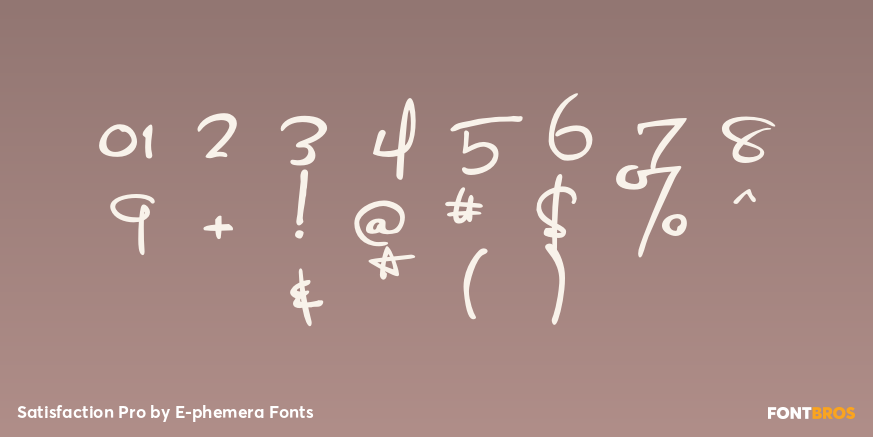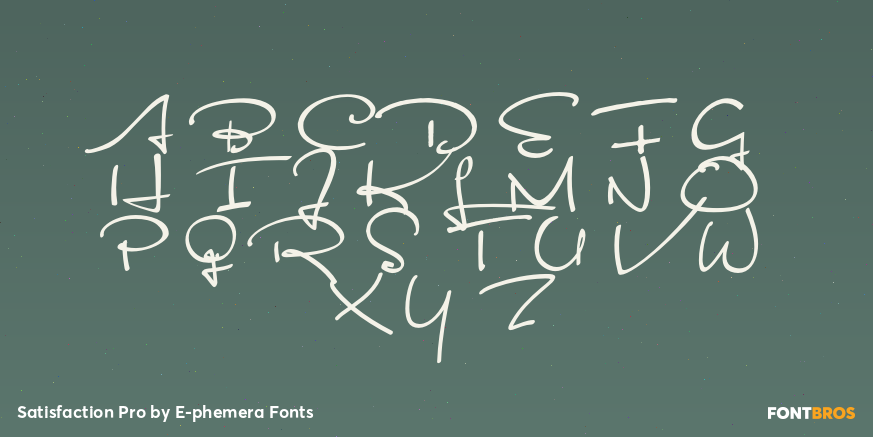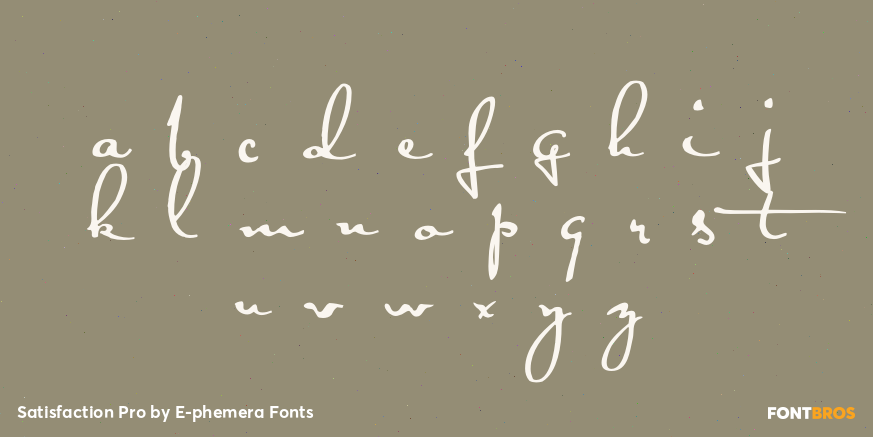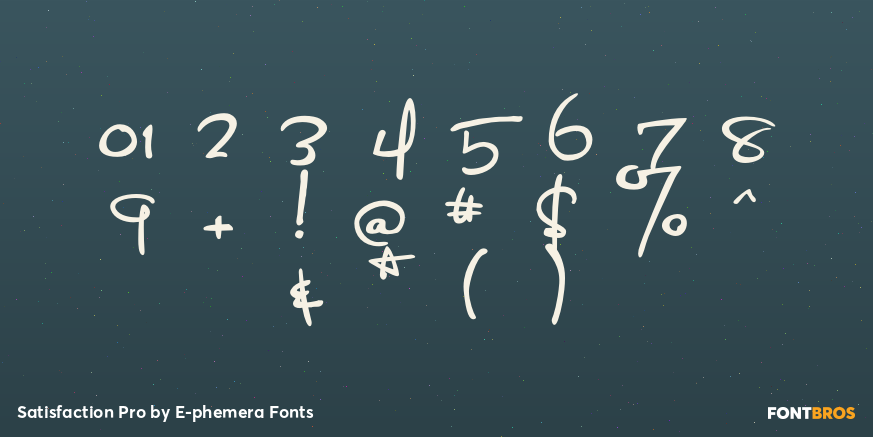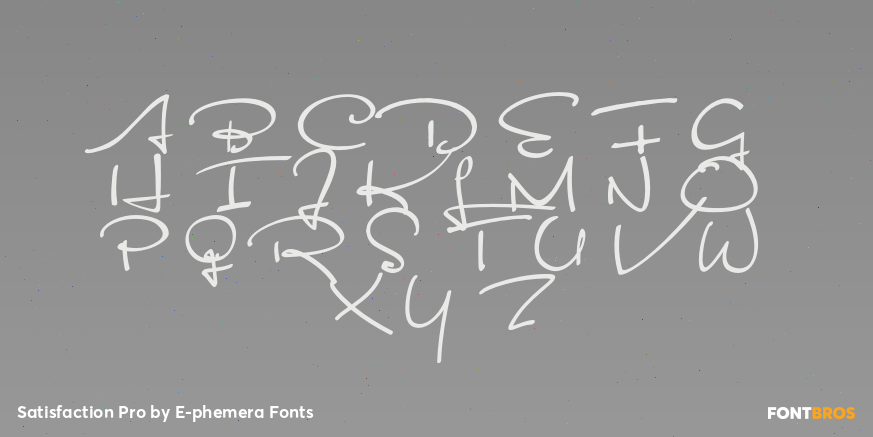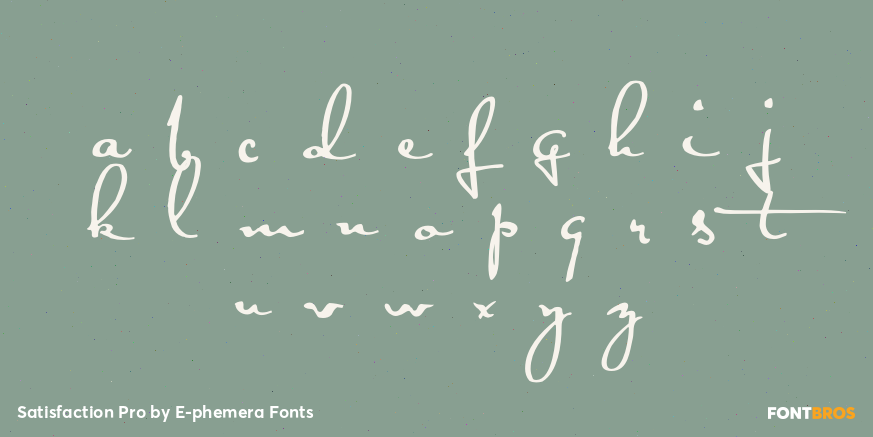
Satisfaction Pro
Font Family by E-phemera Fonts
This font is inspired by hand lettering in cigarette ads from the 1940s and '50s. It features various double-letter pairs and alternate letterforms accessed via OpenType to help create a smooth organic "handwritten" feeling.